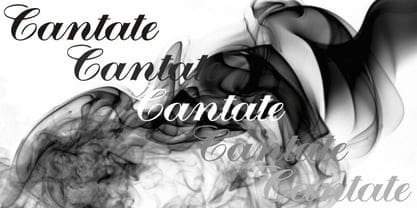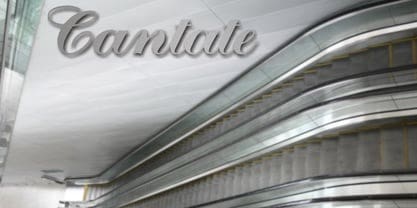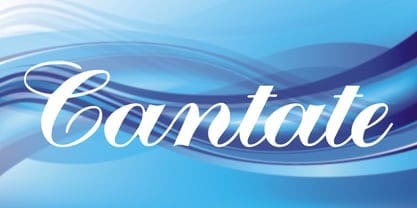
Cantate Font
Cantate Font a bold and brute script font. It would be a perfect choice to design posters, affiches, logos, t-shirt and magazine prints, eye-pleasing typographic designs and more.